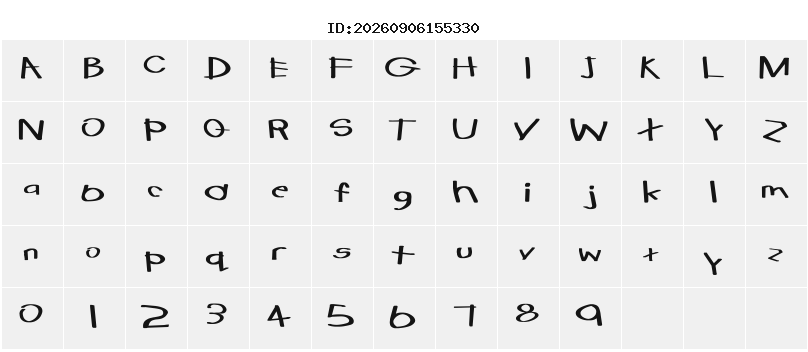
Tabatha Ex bold Preview
About Tabatha Ex bold.ttf
Tabatha Ex bold.ttf is a modern, elegant sans-serif font designed for ultimate readability and visual harmony. Perfect for branding, headlines, web design, and print materials.